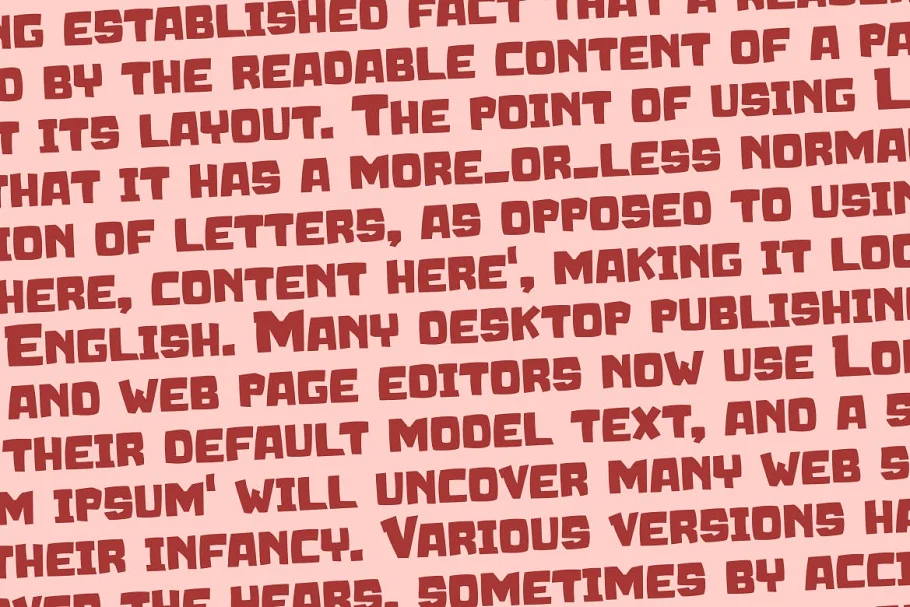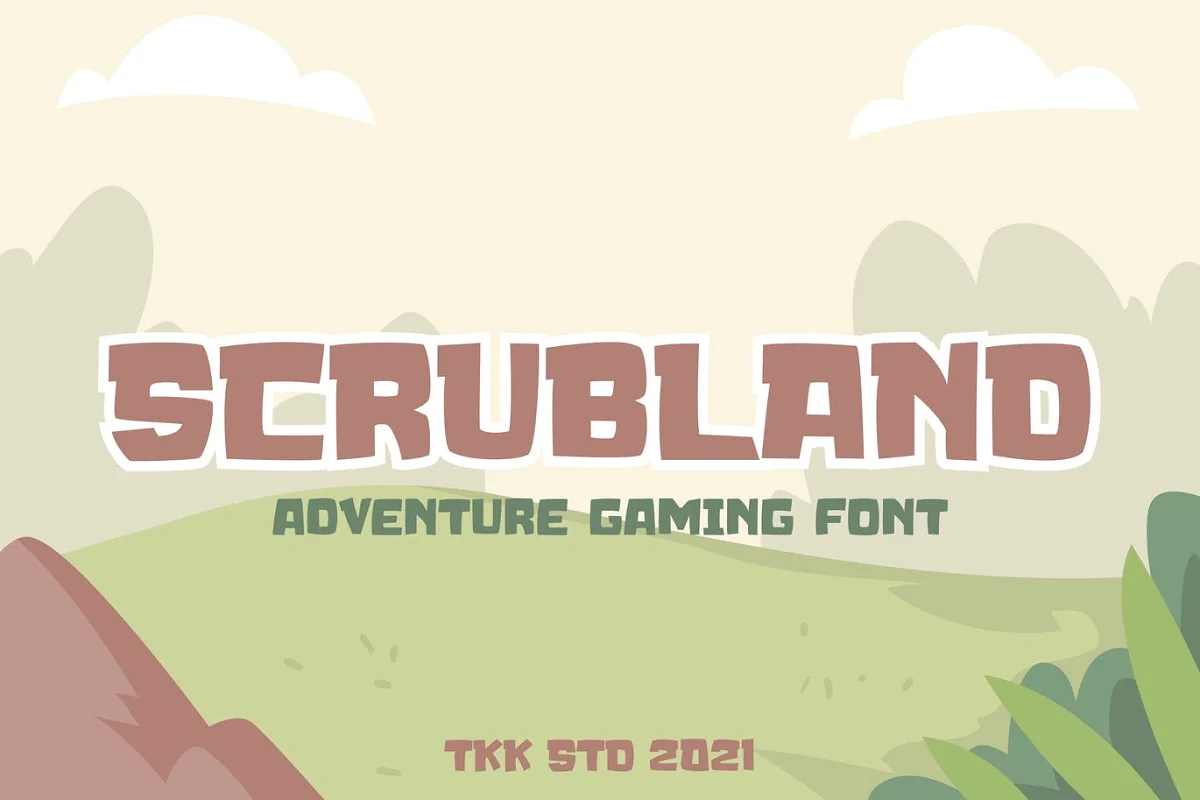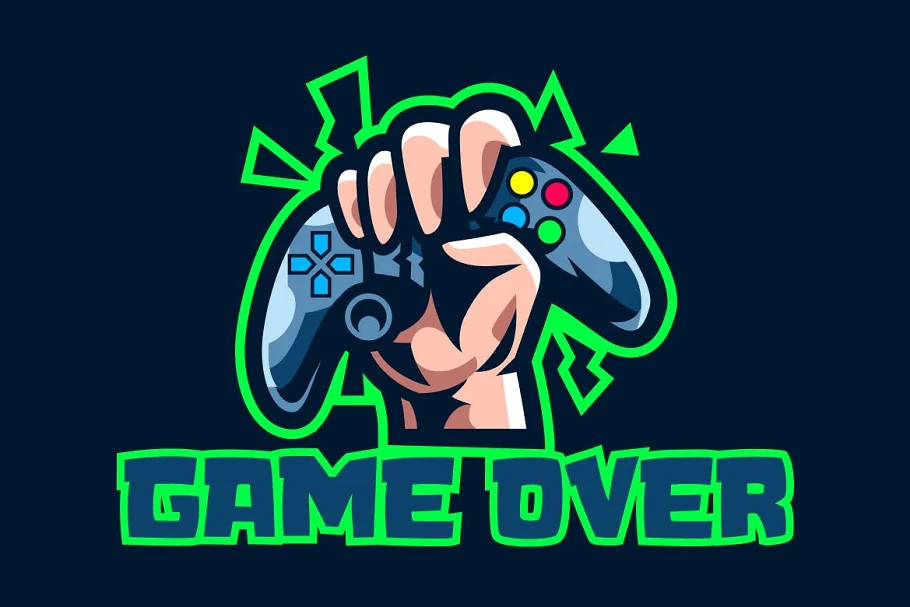
About the Scrubland Gaming Font
Scrubland gaming font will emphasize the adventurous side.
Suit perfectly for Online Games, posters, movie titles, fast food menus, magazines, youtube covers, youtube thumbnails, social media page covers, and so on…